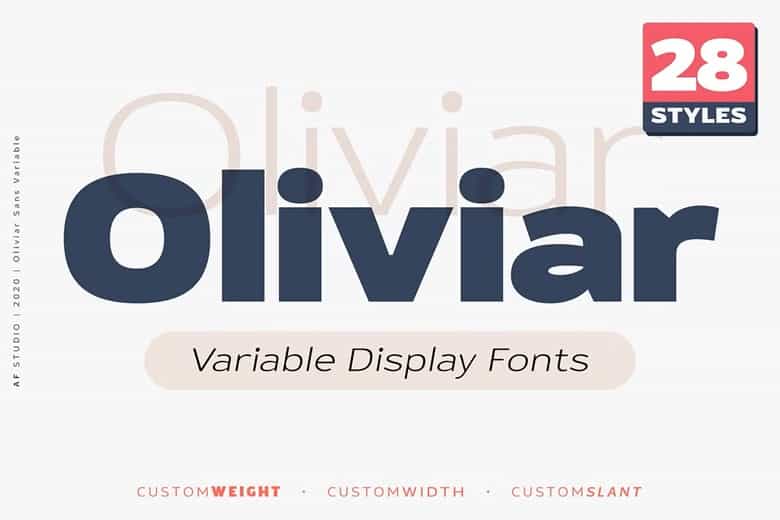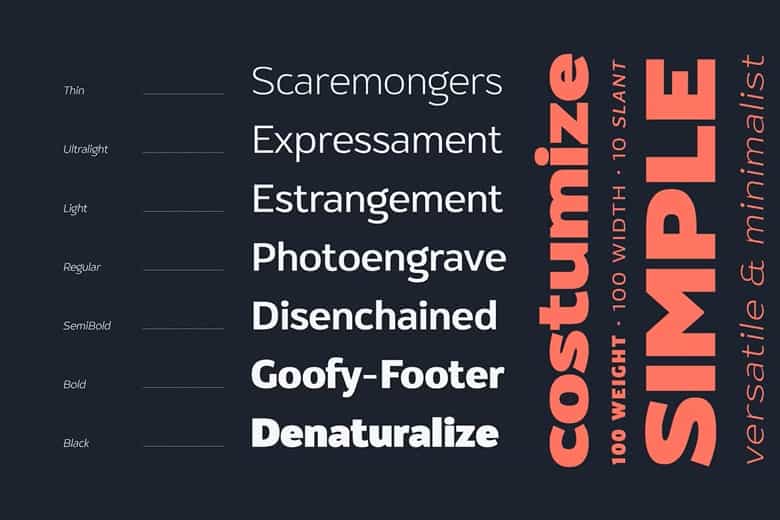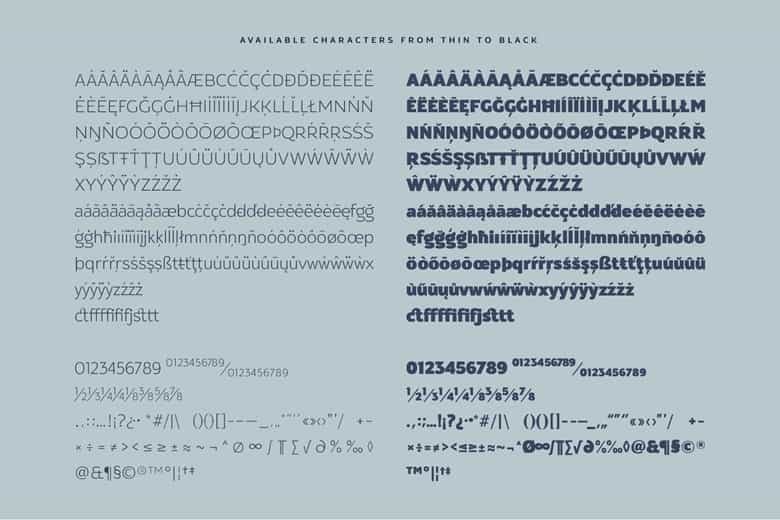
Oliviar Sans is an elegant and modern display sans serif font with Grotesque touch. It can easily be matched to an incredibly large set of projects, so add it to your creative ideas and notice how it makes them stand out!